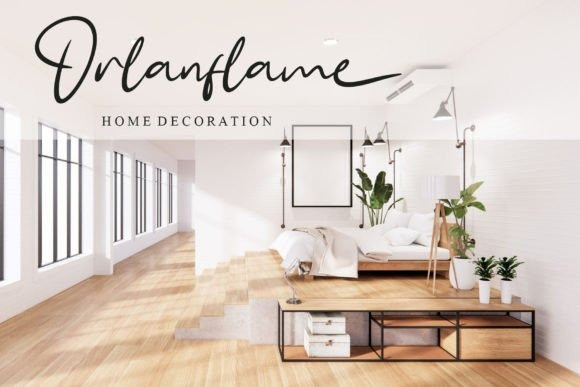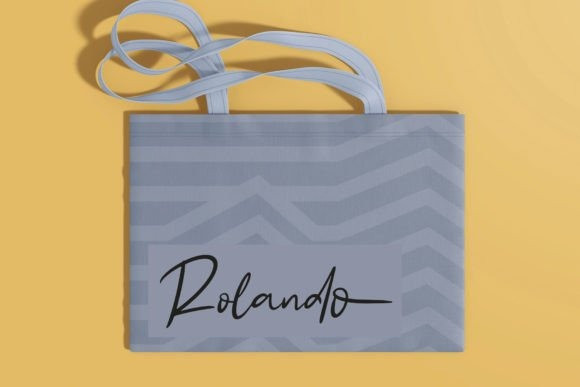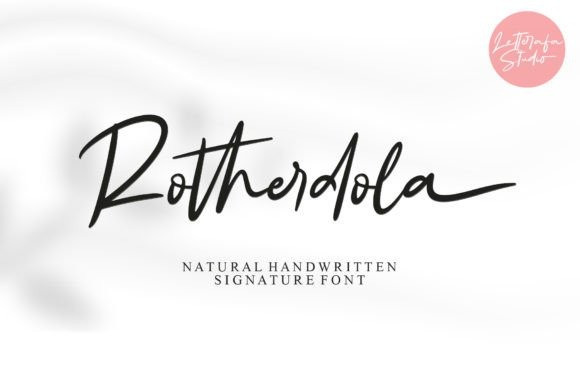
Rotherdola Script Font
Rotherdola Script Font is a simple and quirky-looking handwritten font. It has a classy, elegant, and modern look that you can use for logos, branding, invitations, stationery, wedding designs, social media posts, and much more!